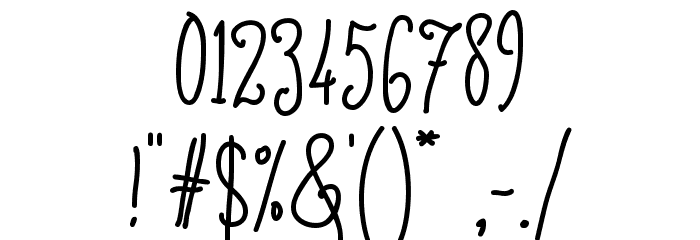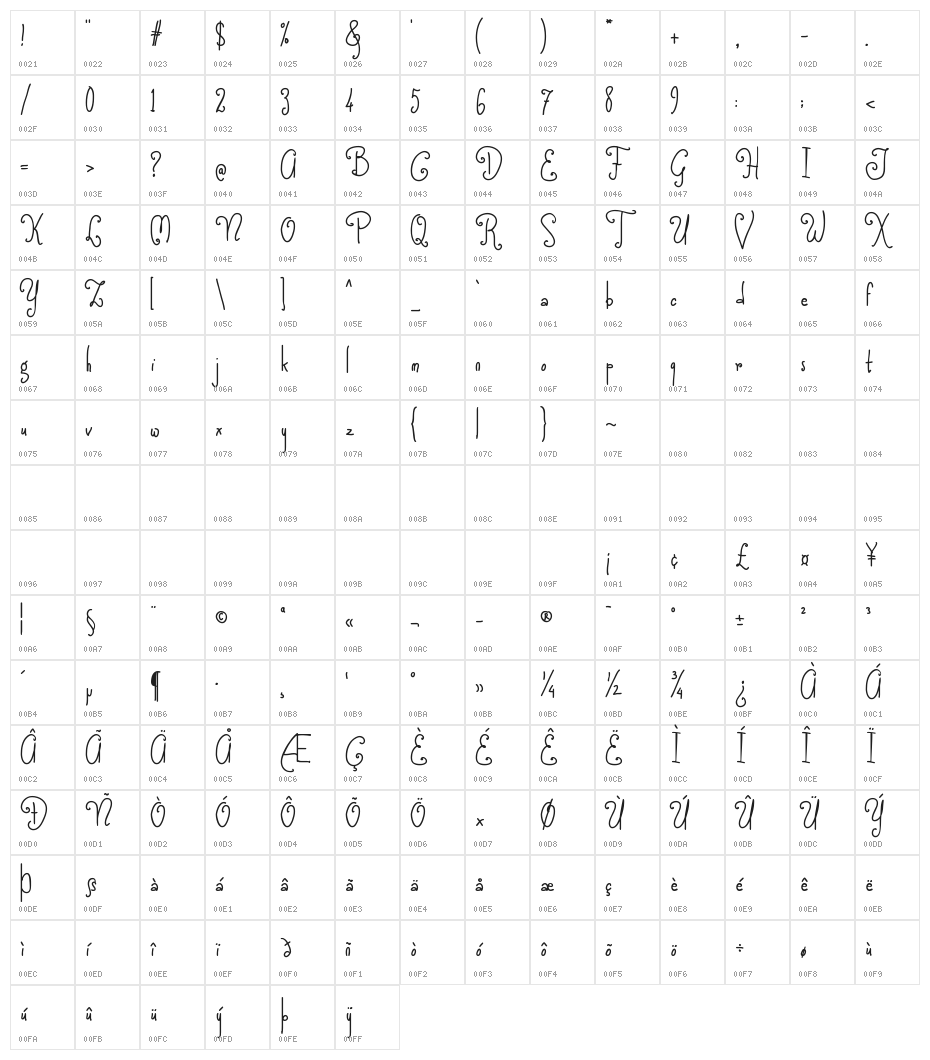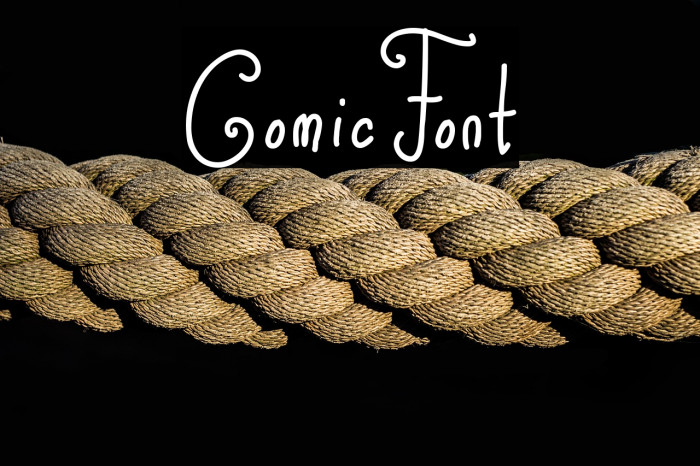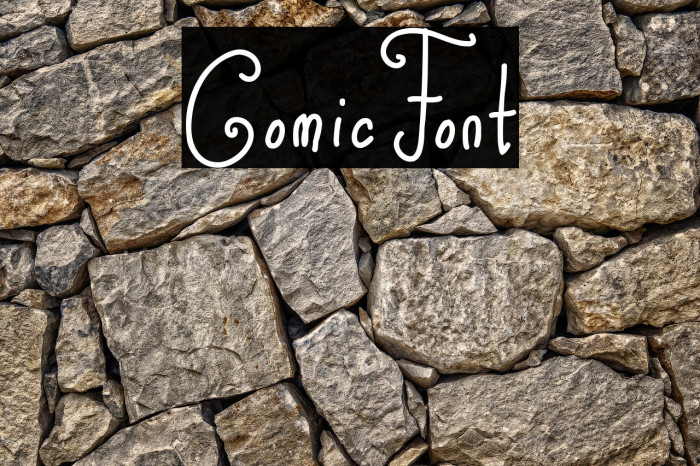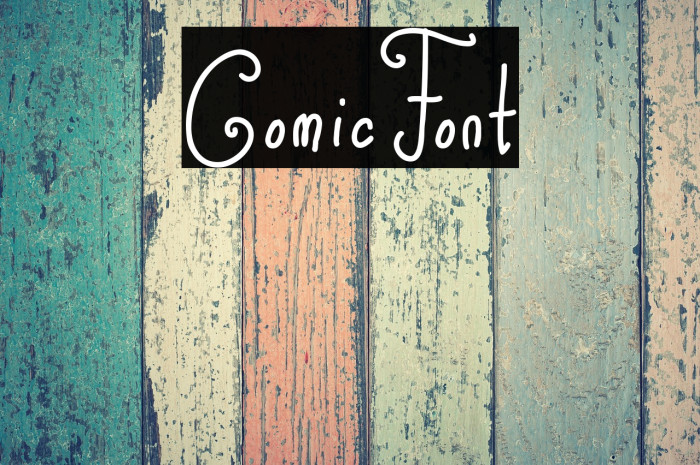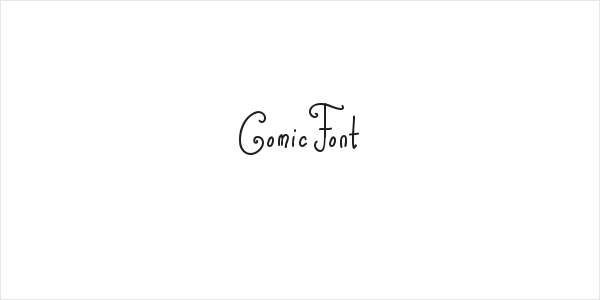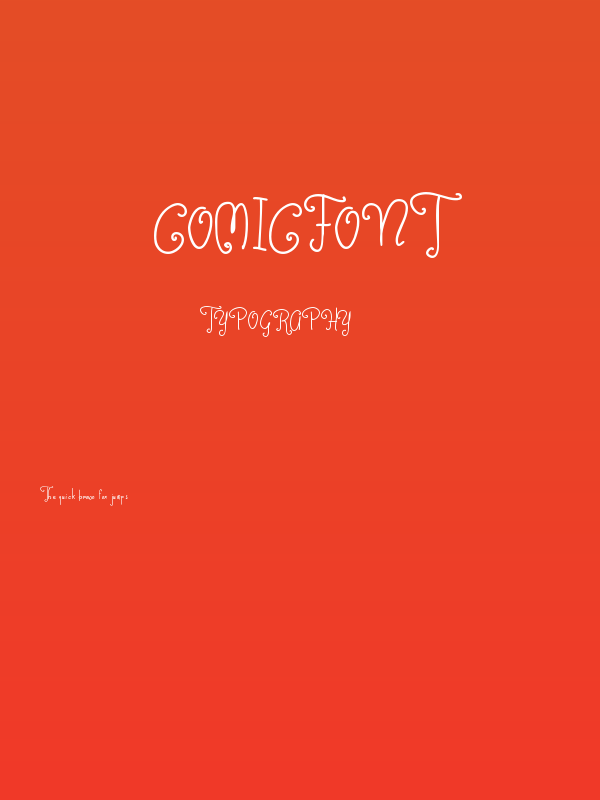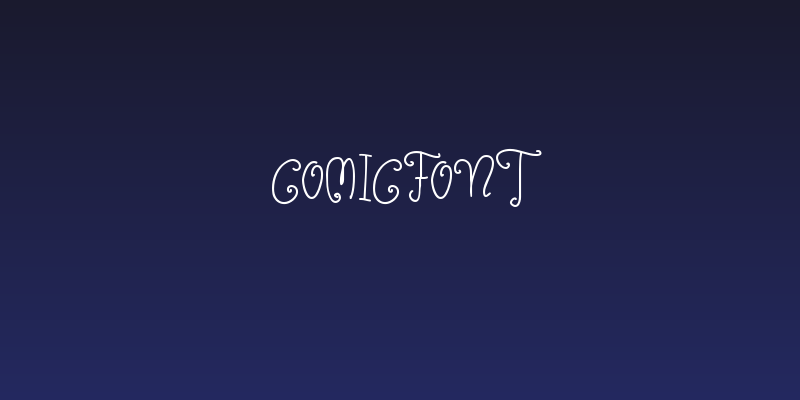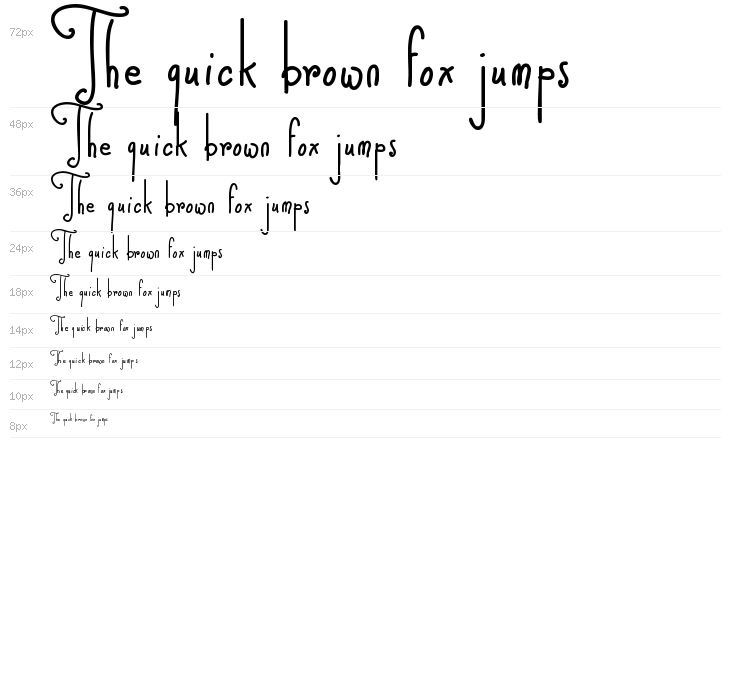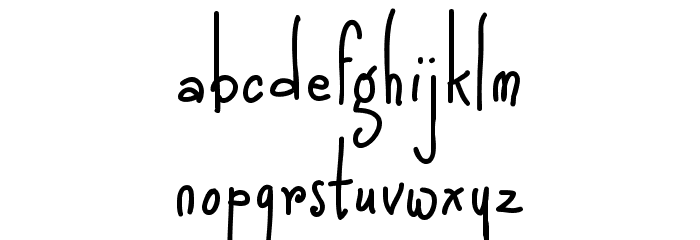
ComicFont Font
ComicFont Description
This playful and whimsical font features a handwritten style with a comic flair. The uppercase letters are characterized by their exaggerated curves and loops, giving them a lively and animated appearance. The lowercase letters maintain a consistent style, with some letters like 'g' and 'j' having distinctive descenders that add to the font's quirky personality. The numerals are bold and maintain the same playful style, ensuring readability while adding a touch of fun. Special characters are creatively designed, fitting seamlessly into the overall aesthetic. This font is perfect for projects that require a lighthearted and informal touch.